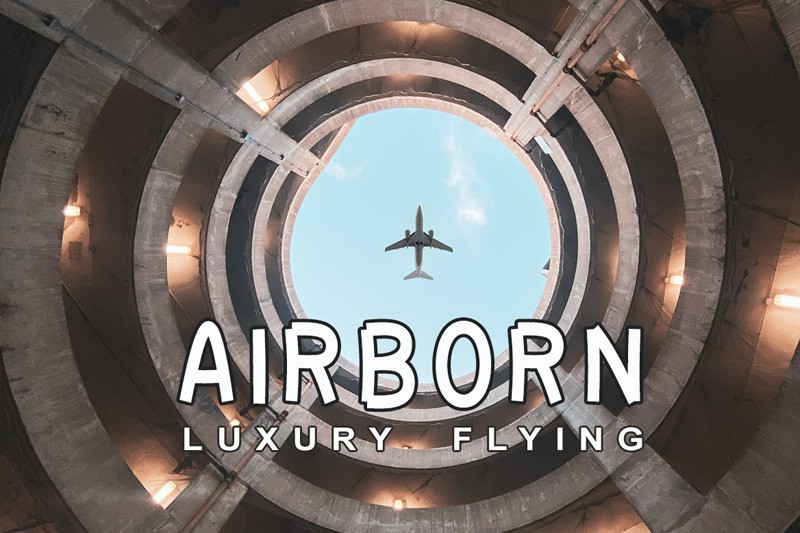
Kinder School Font
Brickout All Caps Display Font, with a childish style, it will be very suitable for your project, which is related to children. Such as story books, illustrations, comic books, t-shirts, posters, greeting cards, logos, branding, stickers, svg, crafting.